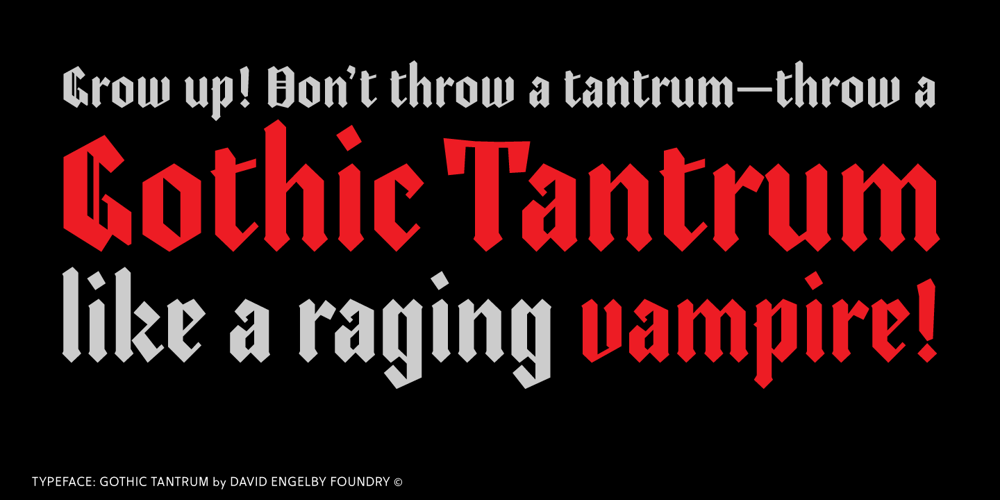
Gothic Tantrum
Gothic Tantrum font
Gothic Tantrum Font Family was designed by David Engelby and published by David Engelby Foundry. Gothic Tantrum contains 1 styles and family package options. A pastiche lovingly imitates its object and celebrates a distinct style. The expressive blackletter font GOTHIC TANTRUM celebrates the undying beauty of simple gothic type while adding to it a modern and edgy design.